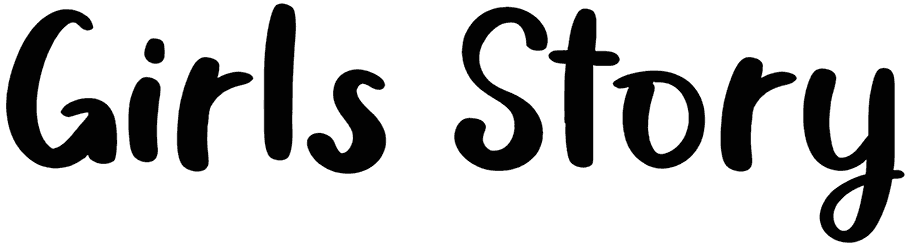
Girls Story Font
Simplicity, charm, and kindness are the meanings injected into Girls Story. This handwritten font can evoke certain emotions, such as happiness, welcome, and relaxation, in you, which directly depends on the potential of the surrounding space.
Using this script font in posters, letters, greeting cards, and book writings is a guarantee to increase the effectiveness of your content, which can ultimately lead you to the desired result in design.